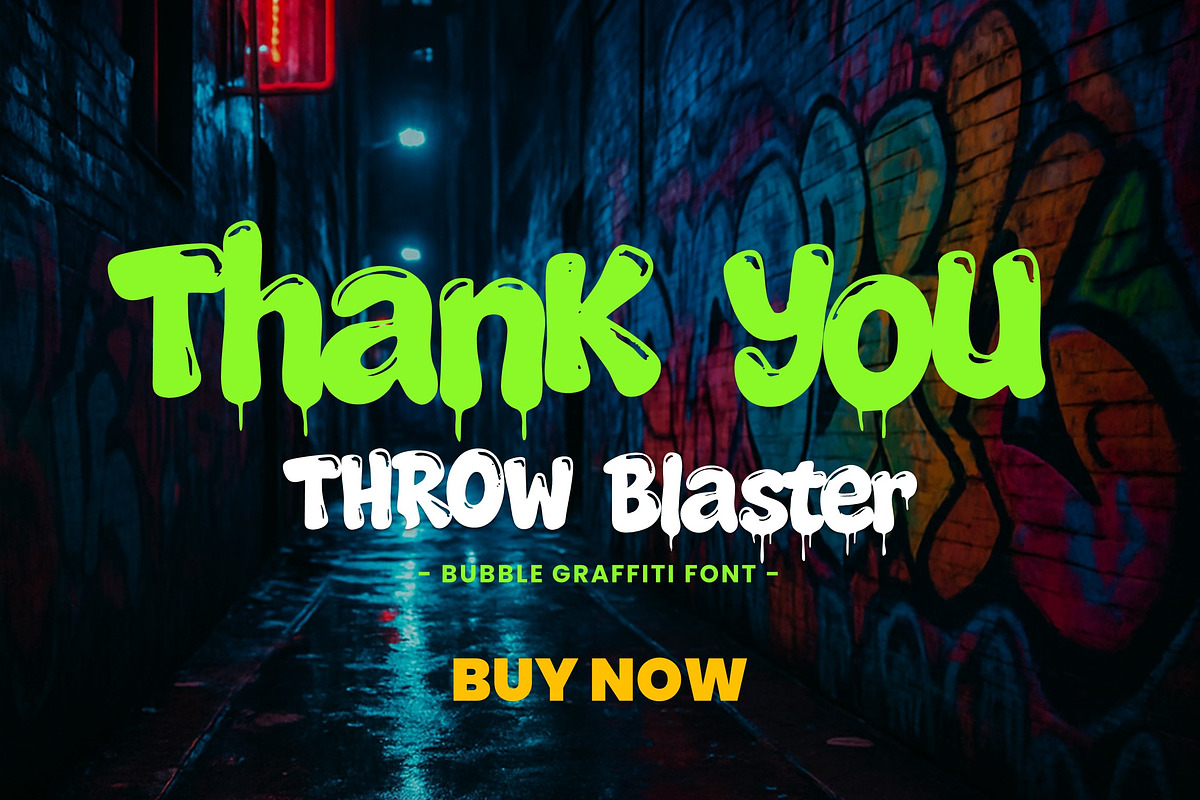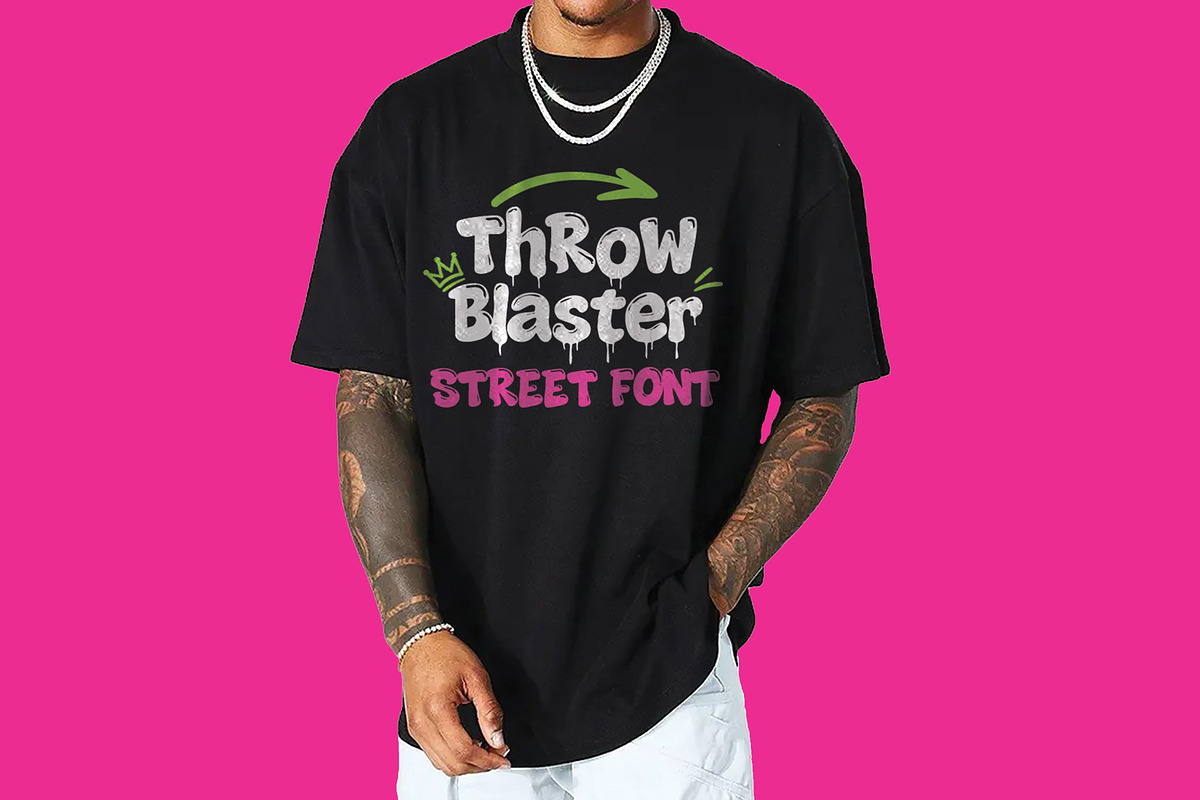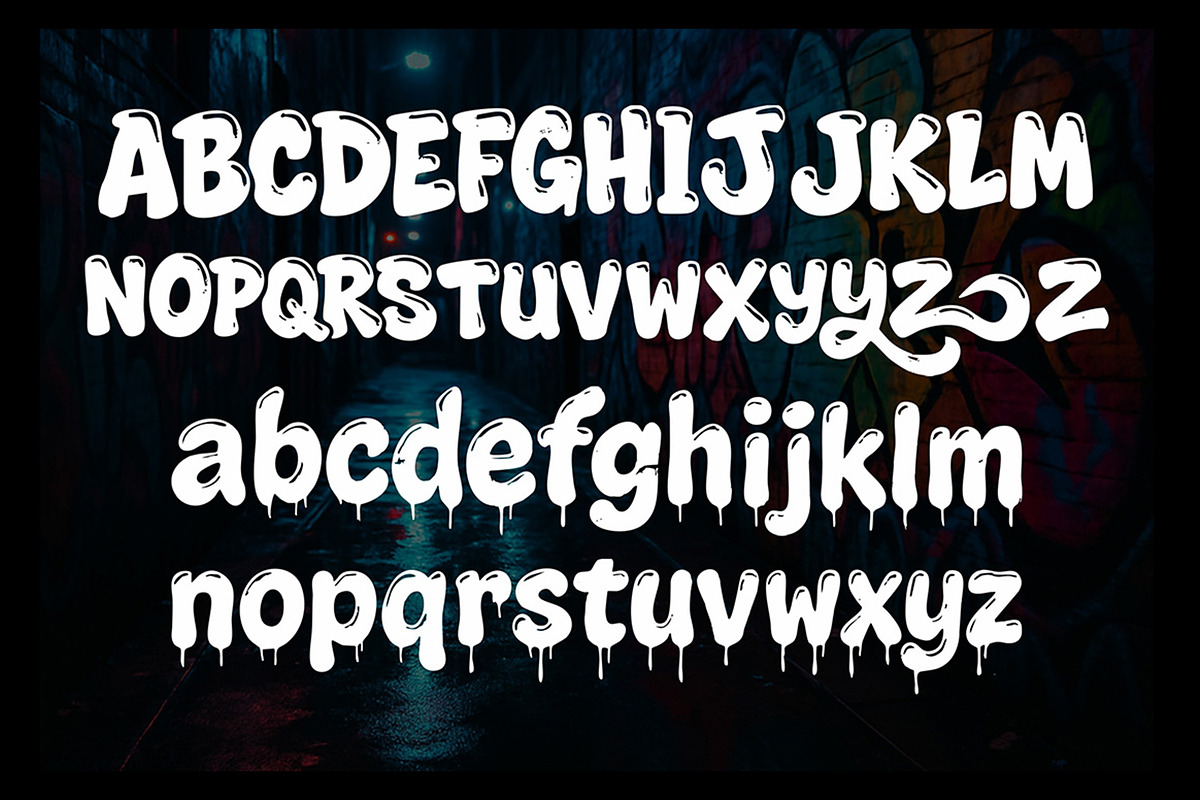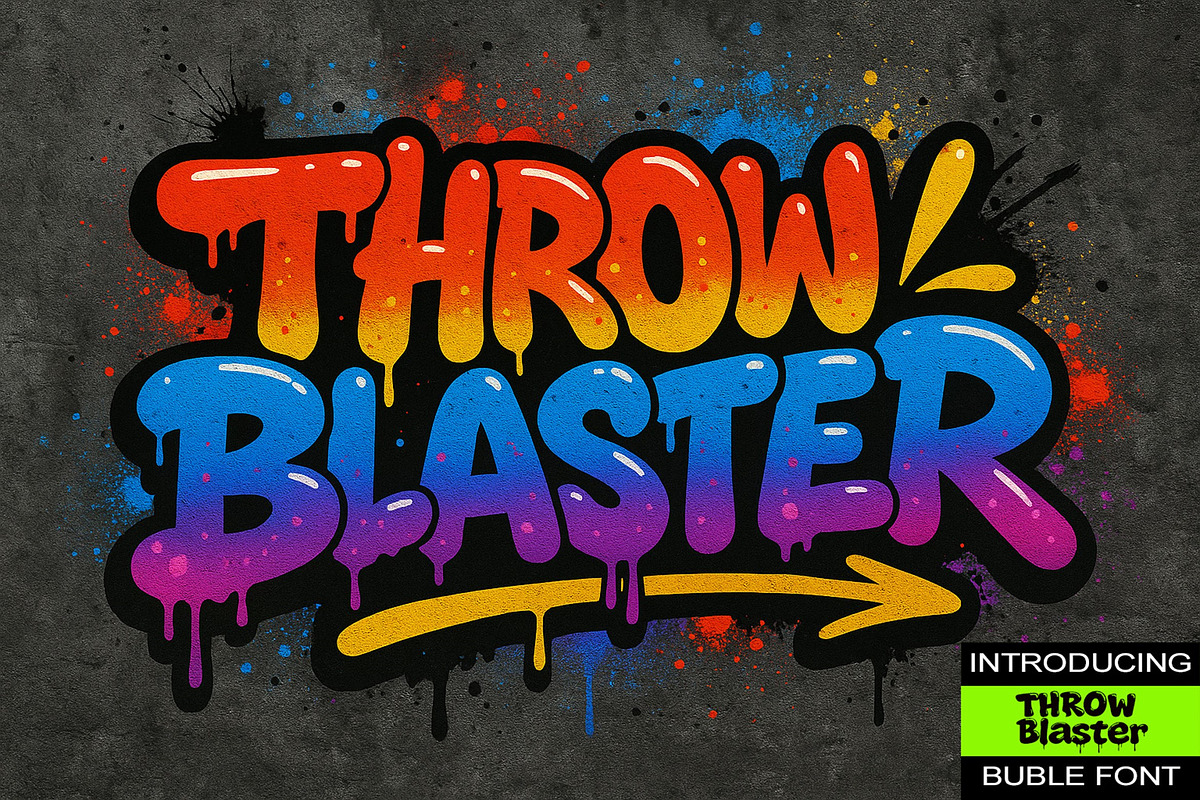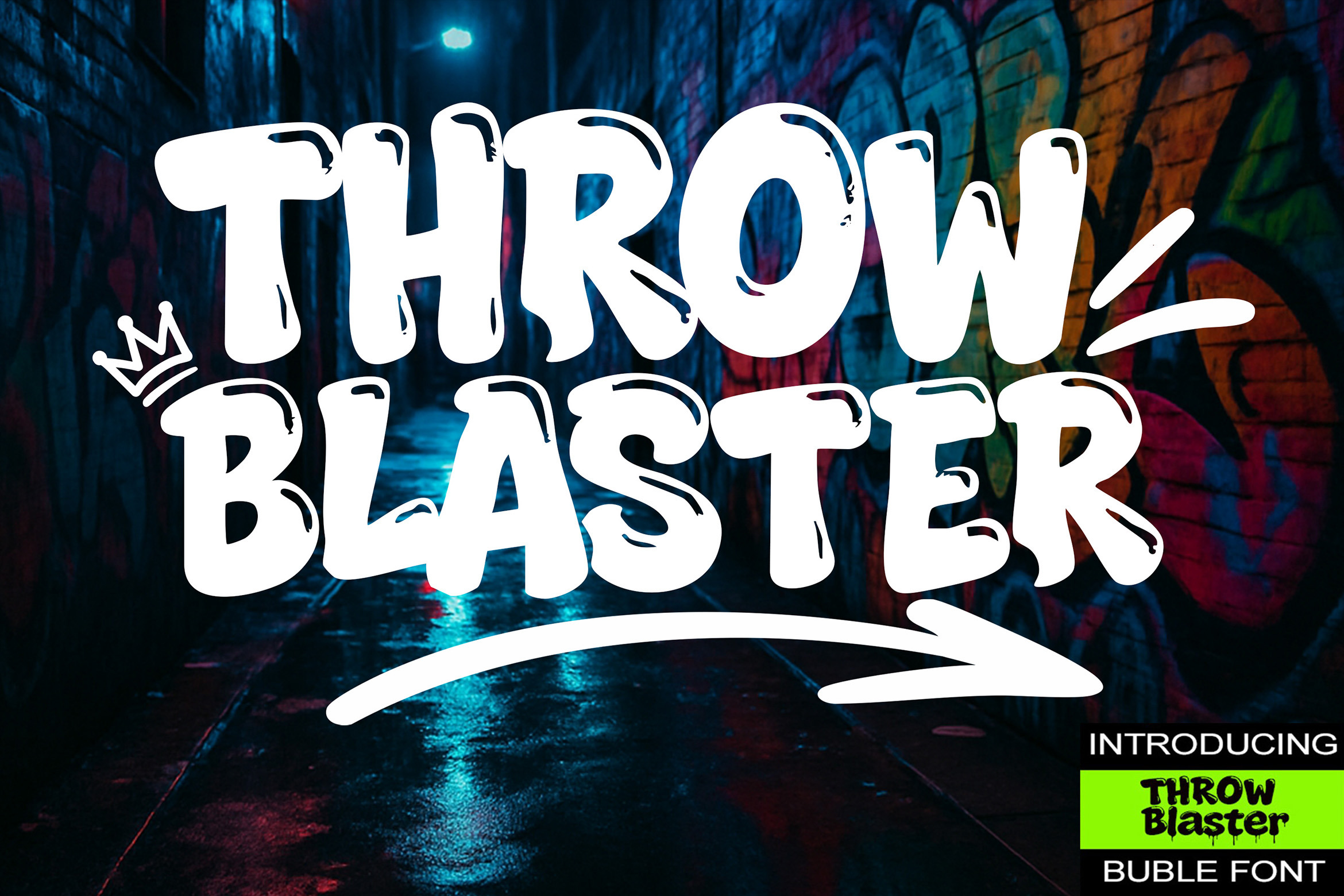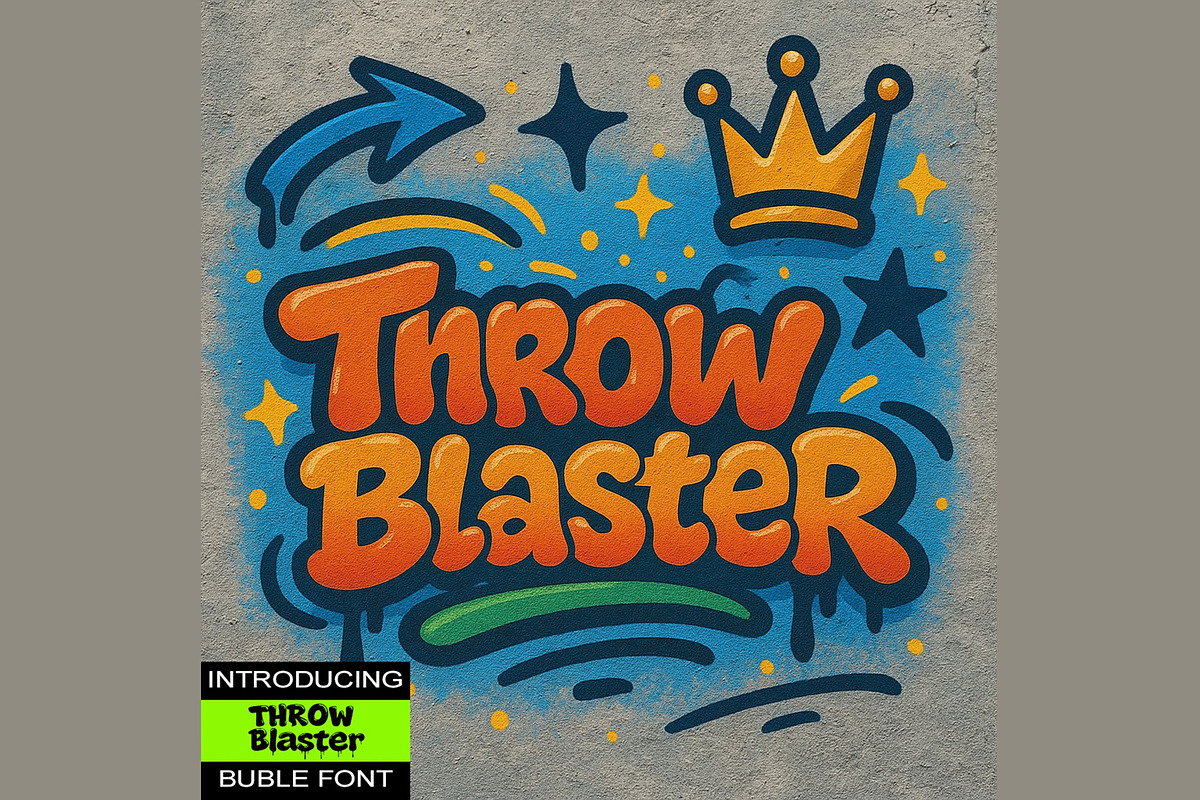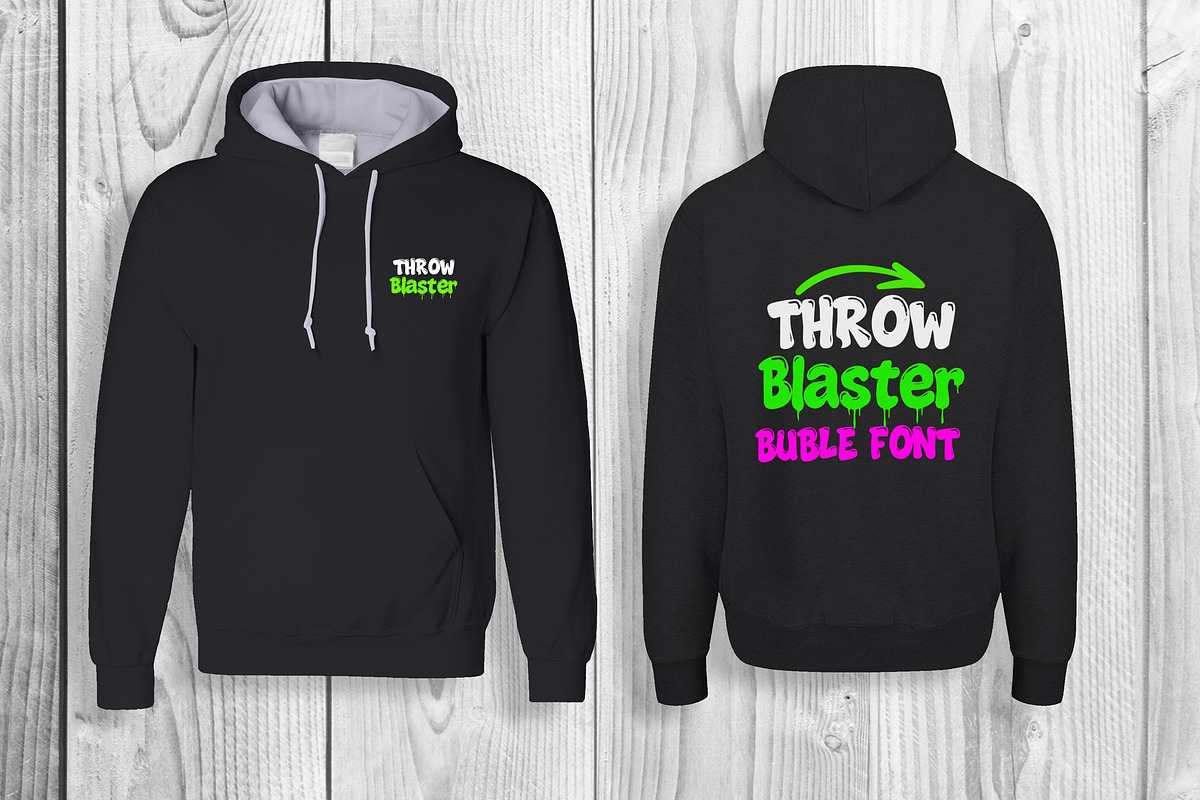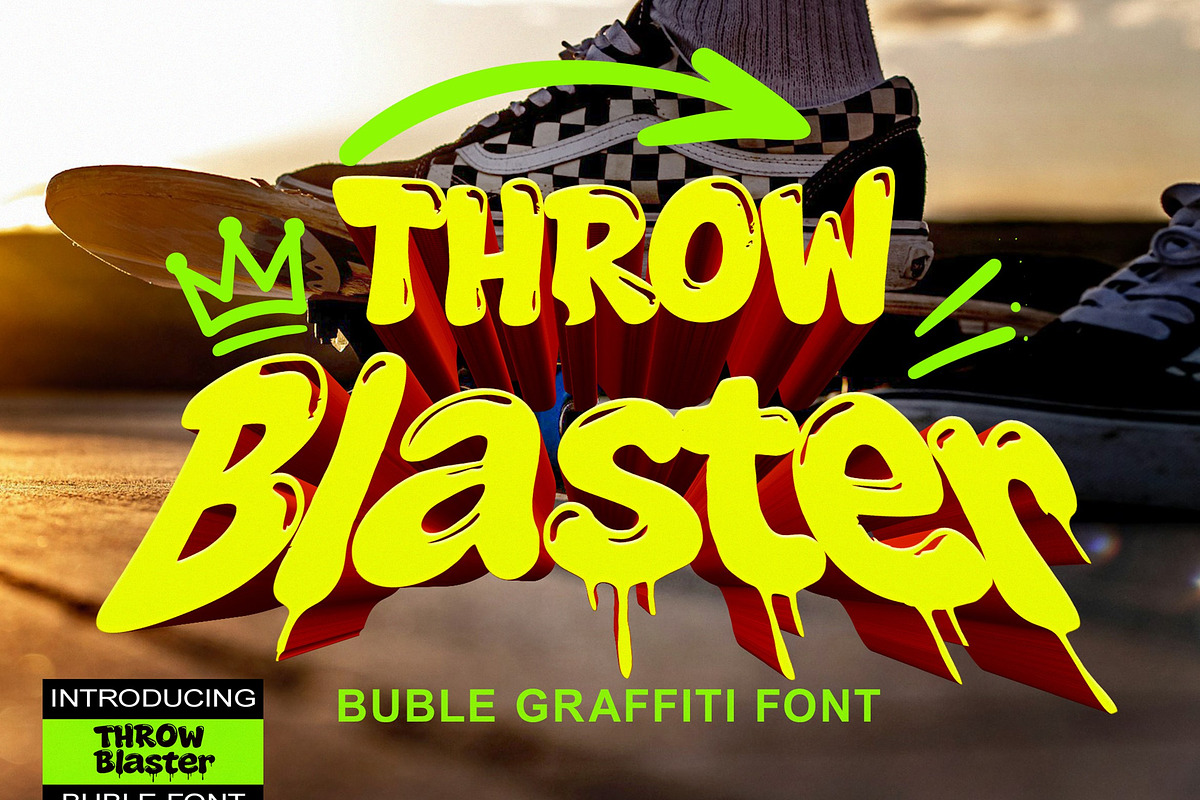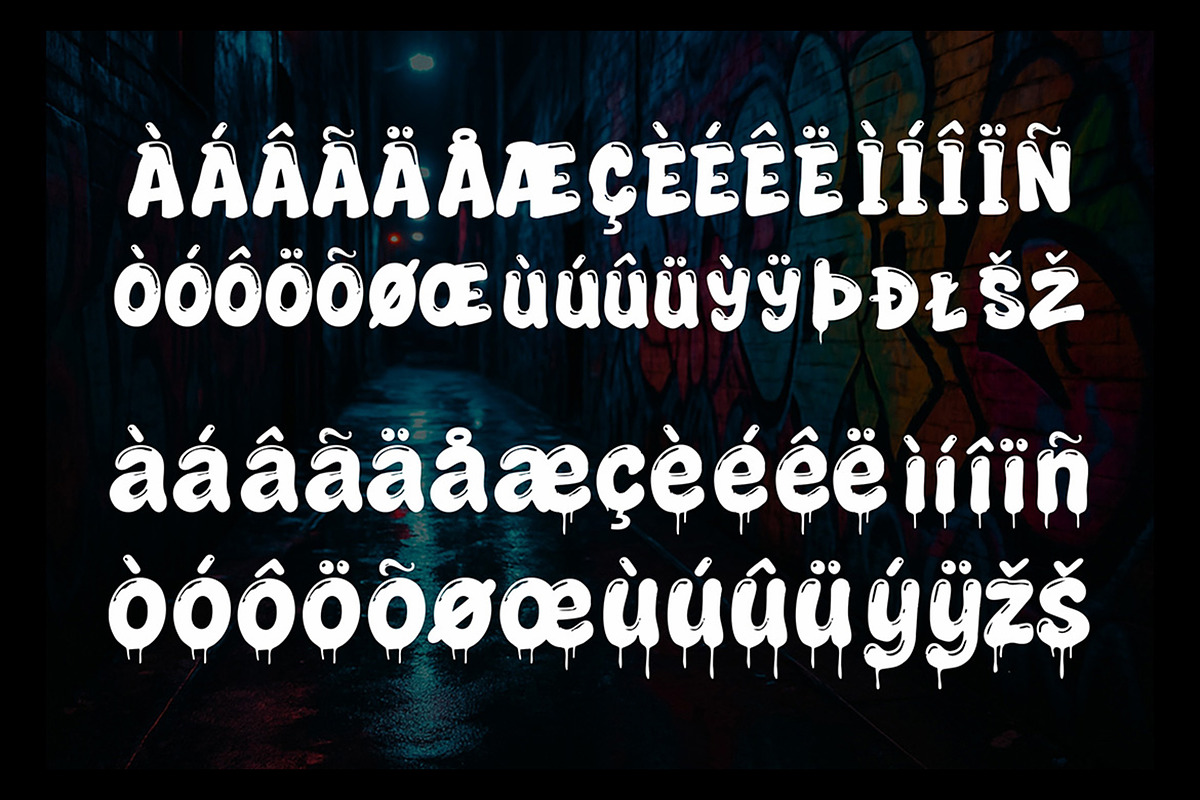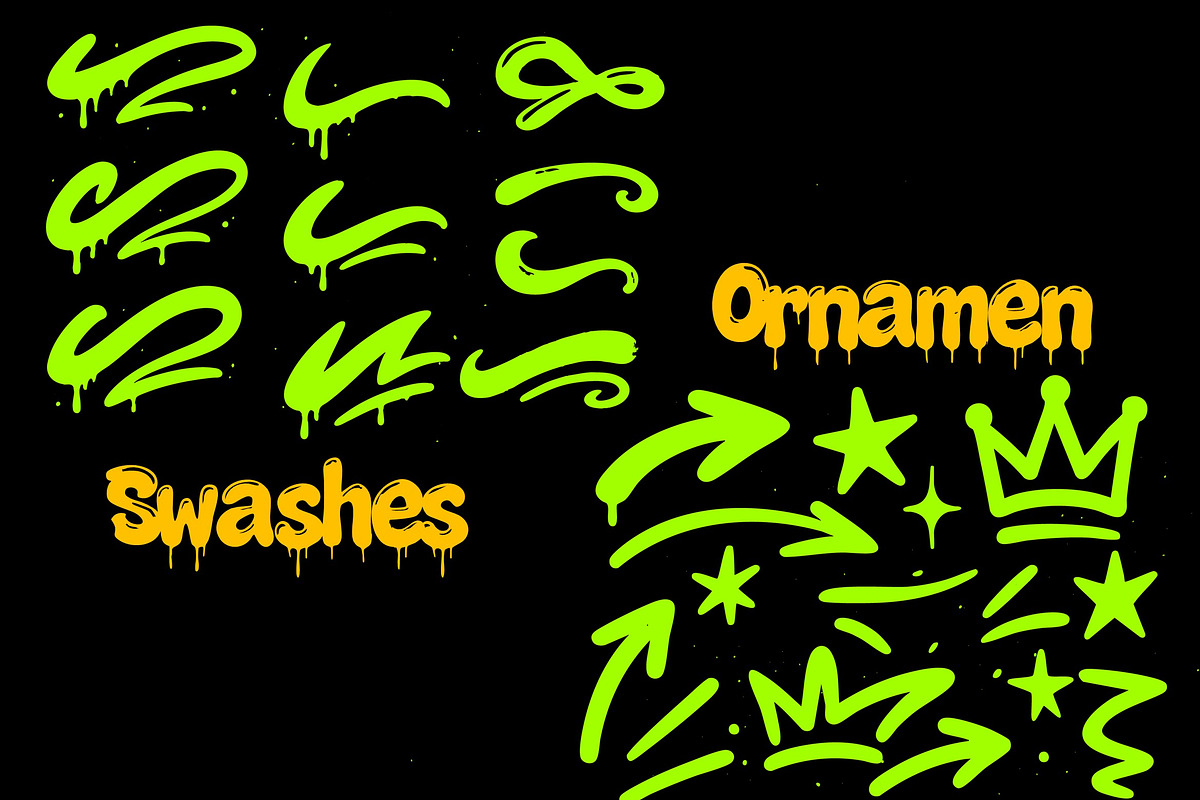
Bubble Graffiti Font
ThrowBlaster Bubble Graffiti Font
Bring the Streets to Your Screen! ThrowBlaster is a bold bubble-style graffiti font inspired by real throw-ups found across gritty urban walls. Perfect for any project design. Ideal for designers looking to bring authentic street flavor into their work.
- 223 Glyps included Uppercase, Lowercase, Numeral, Punctuation, Multilingual international Language, swash and ornament Street art